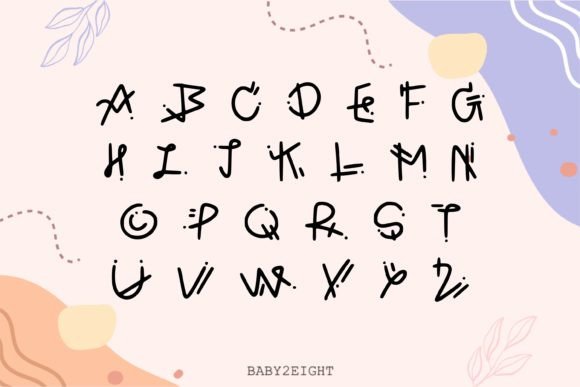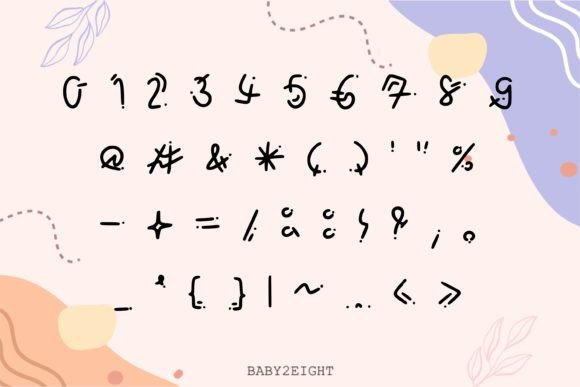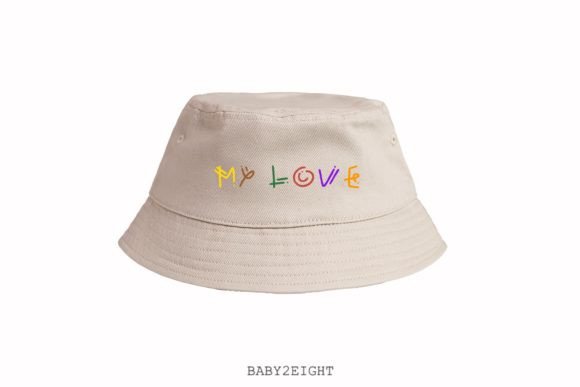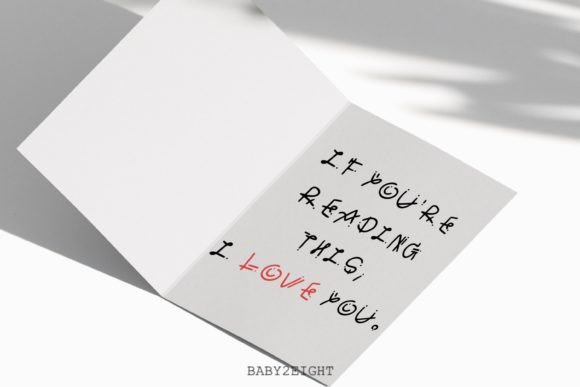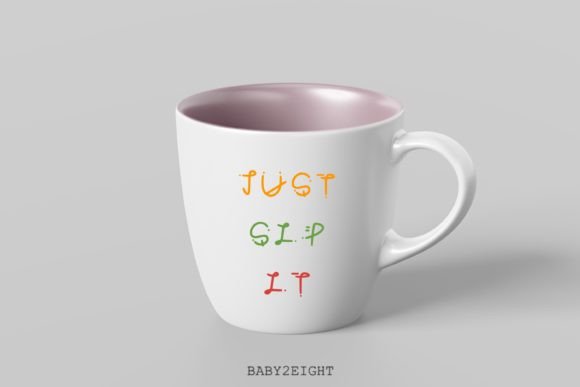
Introduction to Mini Magic Pop Font
Mini Magic Pop is a script font with a bright, cute, playful, incredibly stylish style.
It looks beautiful in wedding invitations, thank you cards, words, greeting cards, logos, business cards, and other designs that require a handwritten touch .
Key Features of Mini Magic Pop Font